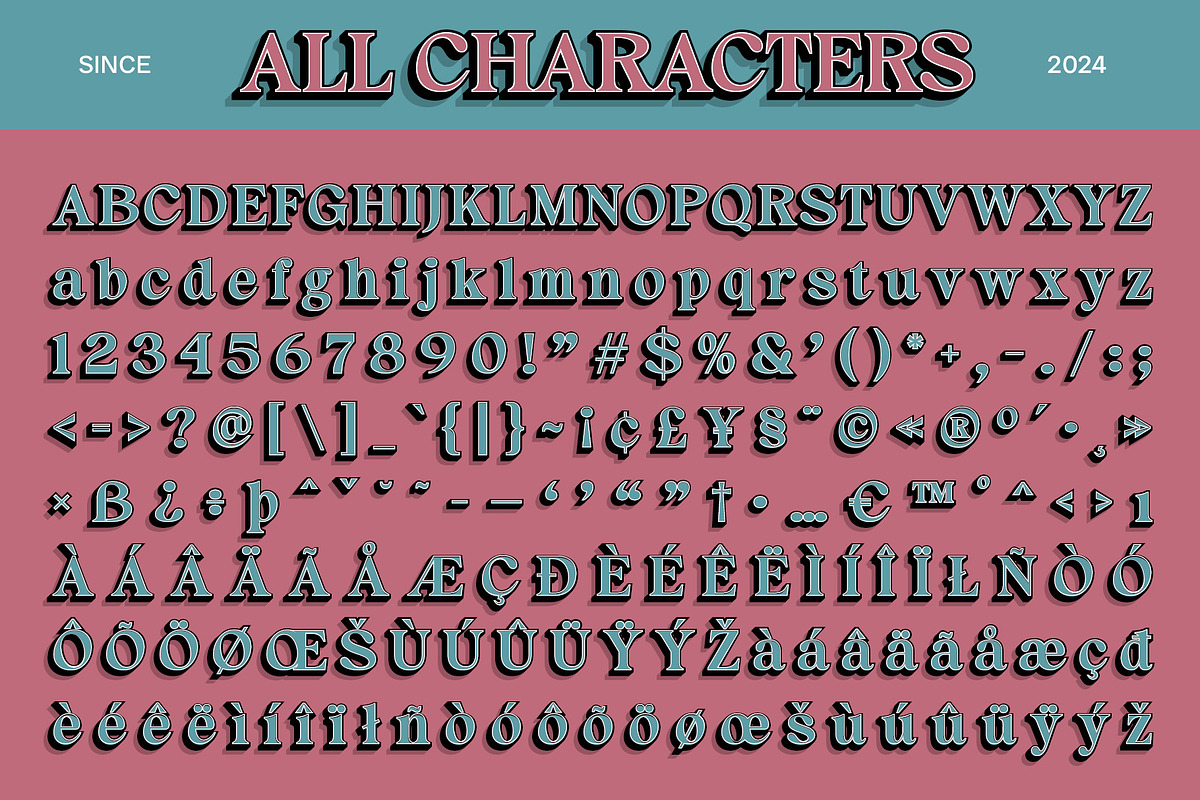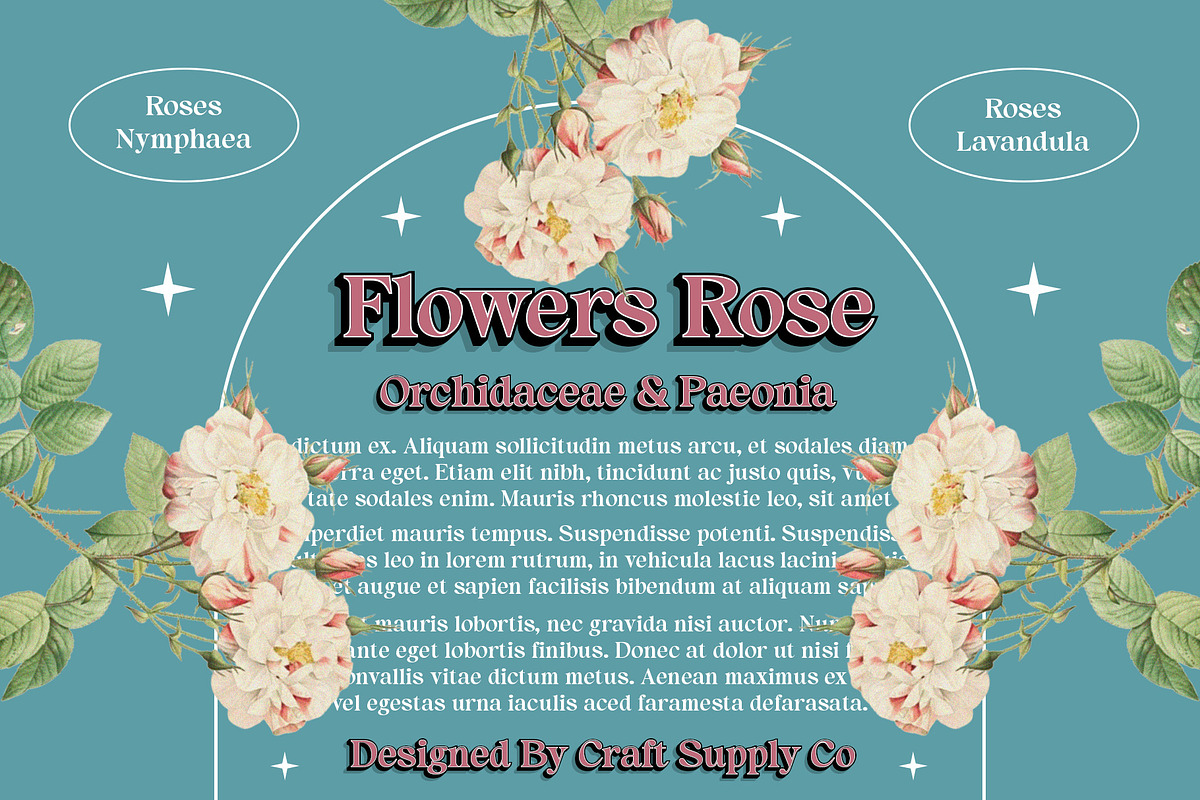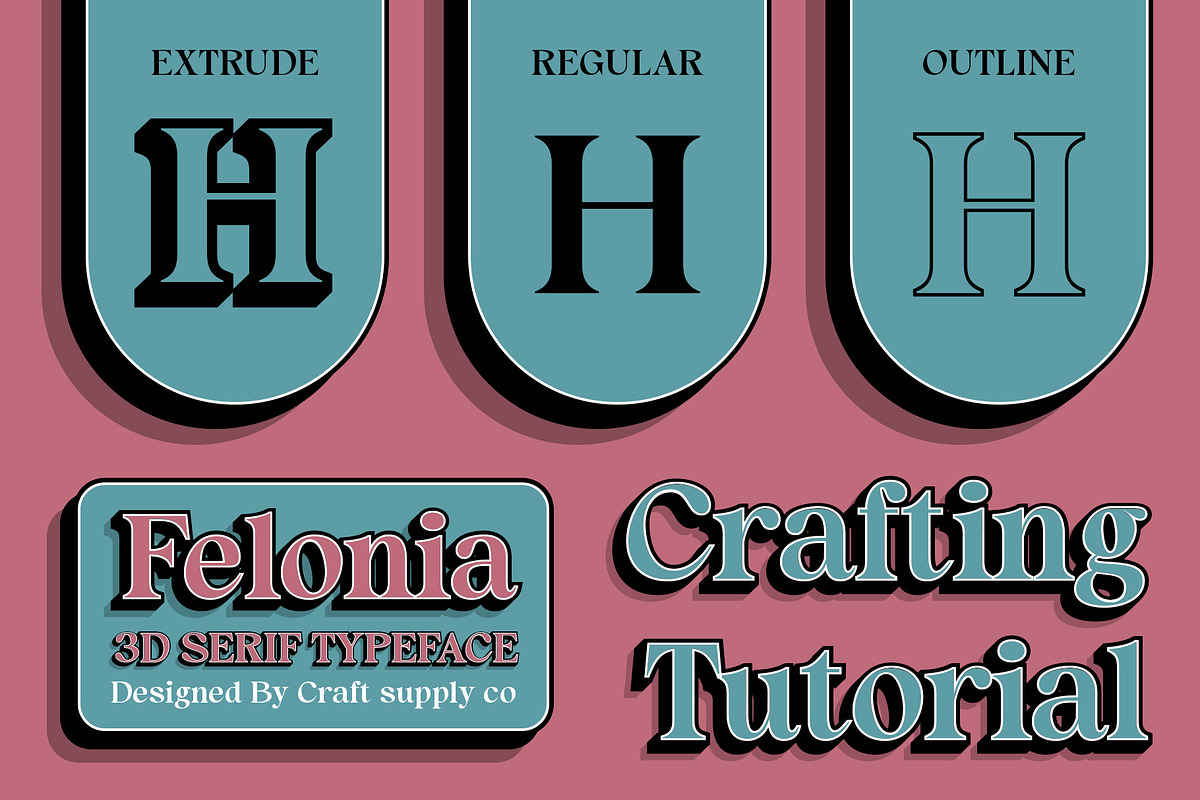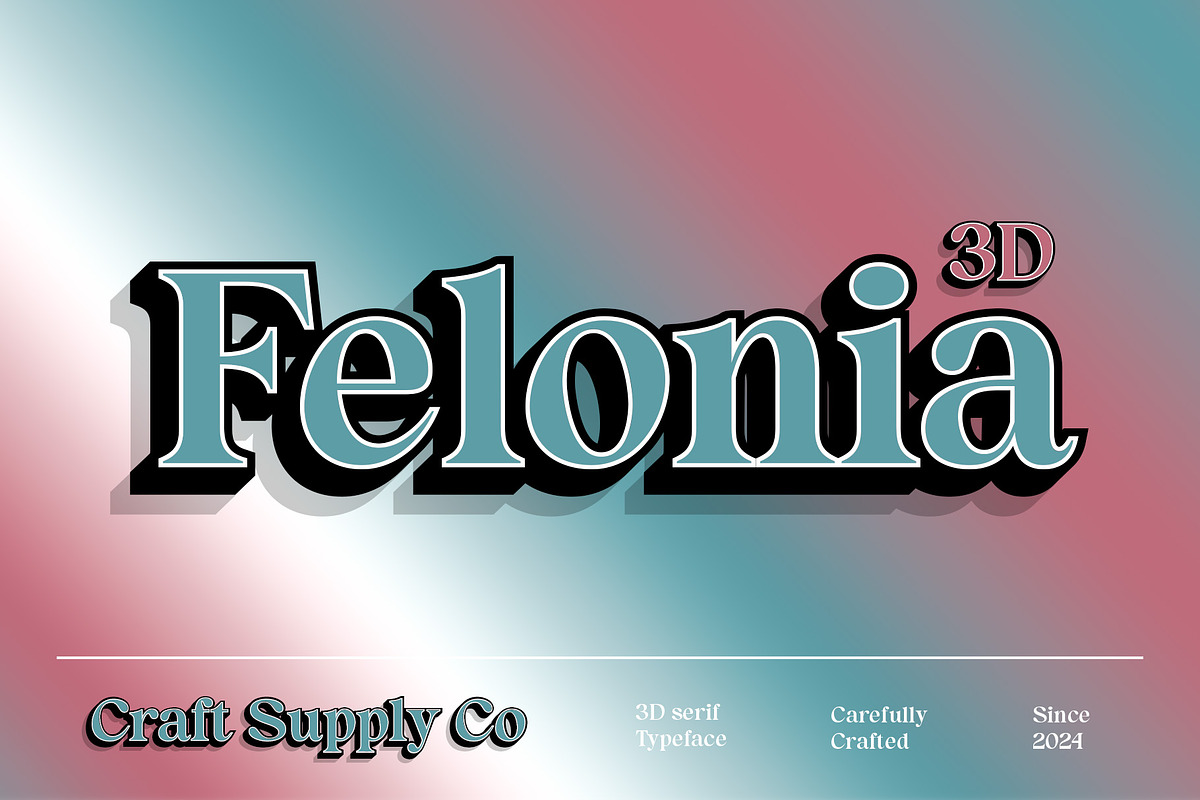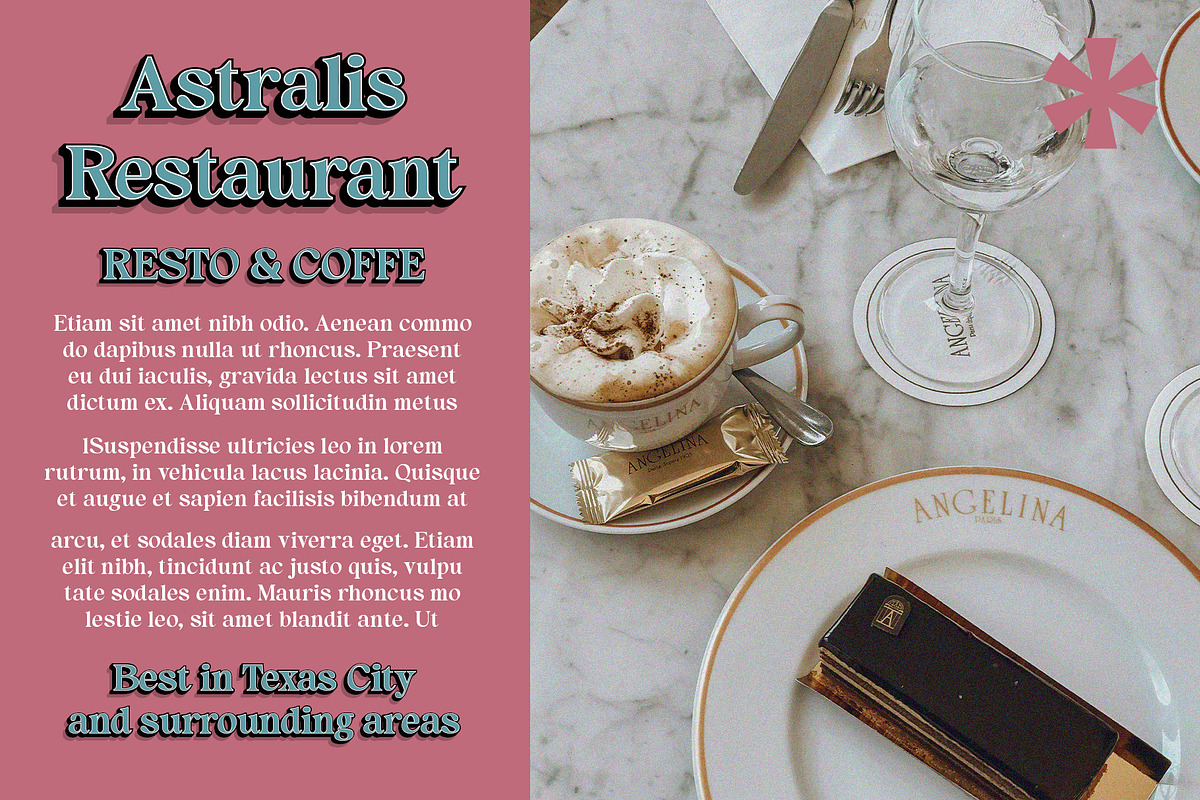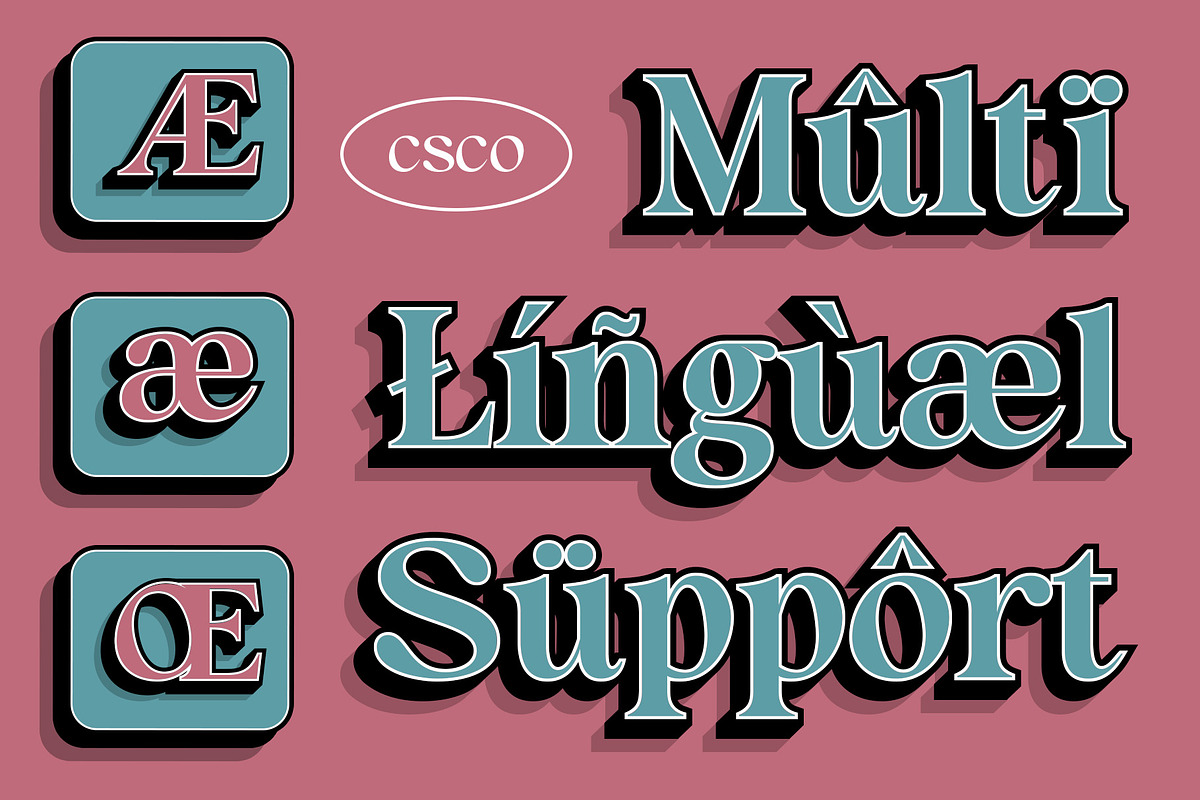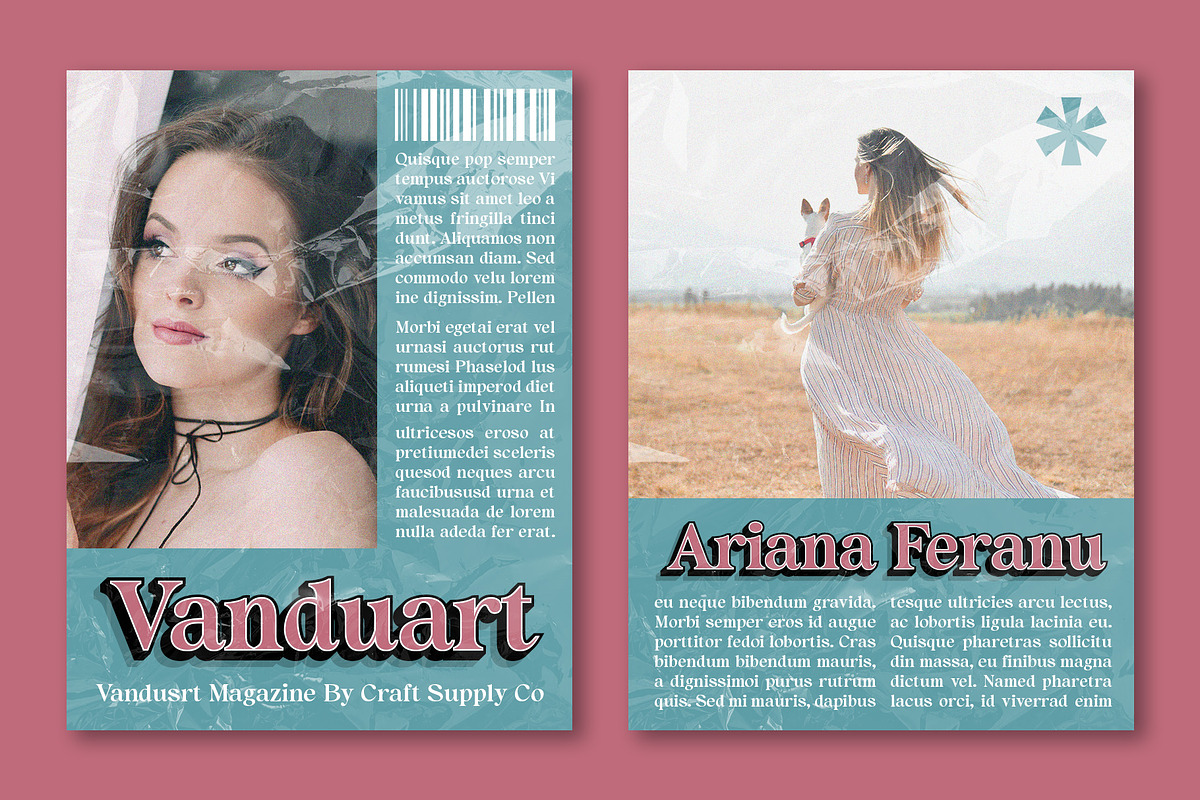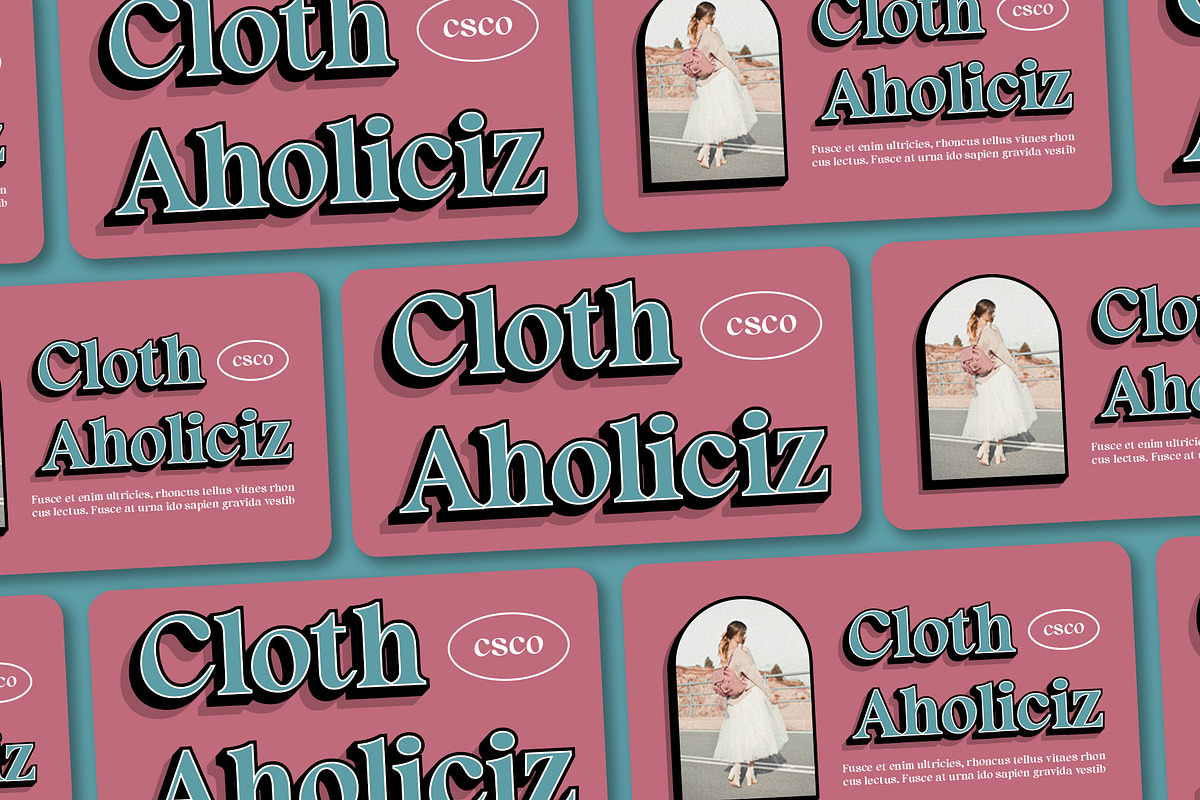
Felonia 3D
Felonia 3D Font: Classic Elegance with Modern Depth
Timeless Charm Meets Contemporary Design Felonia 3D is a classic serif font that exudes retro charm, enhanced by a striking 3D effect. Its design brings a nostalgic feel to your projects, while the modern dimensionality adds visual depth, creating a unique and captivating look.
Perfect for Vintage-Inspired and Nostalgic Designs This font is ideal for vintage-inspired designs and nostalgic branding. Whether used in posters, logos, or creative projects, Felonia 3D adds a touch of timeless elegance, ensuring your design stands out with both classic sophistication and contemporary flair.
A Fusion of Classic and Modern Elements Felonia 3D seamlessly blends the classic appeal of serif fonts with the innovative 3D effect, offering a perfect balance between tradition and modernity. Its distinctive design is perfect for those looking to infuse their projects with a sense of historical depth and modern creativity.
Elevate Your Design Aesthetic With Felonia 3D, you can achieve a unique visual impact that highlights both elegance and innovation. This font is perfect for adding a sophisticated and dynamic touch to any design, making it an excellent choice for high-end branding, editorial layouts, and vintage-themed projects.
- Felonia Regular
- Felonia Outline
- Felonia Extrude Right
- Felonia Extrude Left